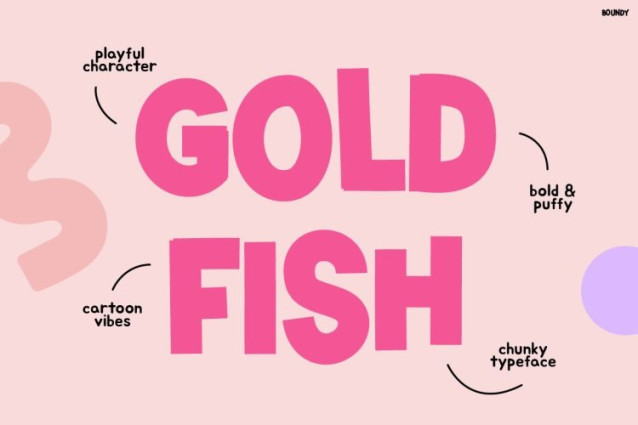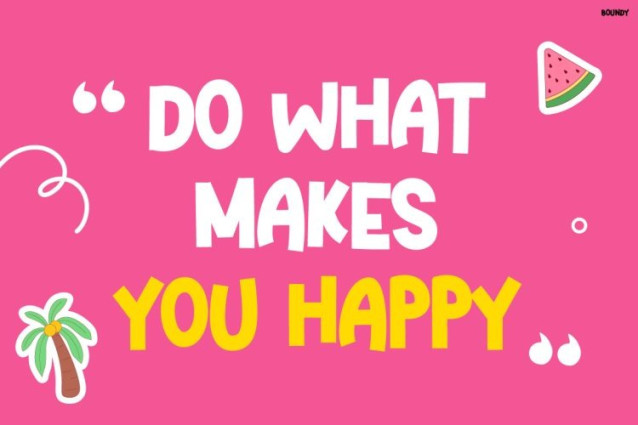
Boundy Font is a bold, all-caps display font designed to radiate happiness, confidence, and playful energy at first glance. Inspired by cheerful shapes, rounded corners, and expressive proportions, this font instantly feels friendly and fun. Each letter is crafted with thick strokes and soft curves, making the typography highly readable while still full of personality. Because it uses an ALL CAPS style, Kids Font BOUNDY delivers strong visual impact, which makes headlines, posters, and branding messages stand out clearly. Moreover, the font balances boldness with warmth, so it never feels aggressive or stiff. Instead, it feels welcoming, lively, and perfectly suited for joyful visual storytelling.
Visually, Kids Font BOUNDY shines in colorful layouts like kids posters, snack packaging, playful quotes, and eye-catching social media graphics. In addition, its chunky letterforms hold up well at large sizes, making it ideal for banners, signage, billboards, and promotional designs. At the same time, the clean structure ensures legibility across both print and digital media. Therefore, this font is not only decorative but also functional, helping designers communicate messages clearly while maintaining a fun aesthetic.
Kids Font BOUNDY is a versatile all-caps font built for bold expression. Its rounded edges and balanced spacing create a friendly rhythm that feels modern and playful. Because of its strong visual weight, it works perfectly for titles, logos, product labels, and campaign headlines. Additionally, the font pairs well with bright colors, illustrations, and cheerful photography, which enhances its overall appeal. Whether used for short phrases or impactful statements, BOUNDY keeps designs energetic and engaging.
Who Is It For?
This font is ideal for graphic designers, brand owners, and content creators who focus on kids, youth, or fun lifestyle markets. It works especially well for children’s brands, toy packaging, food and snack products, summer events, school promotions, creative merch, and playful advertising campaigns. Furthermore, social media managers and small business owners will find it effective for posts, reels covers, and promotional banners that need instant attention.